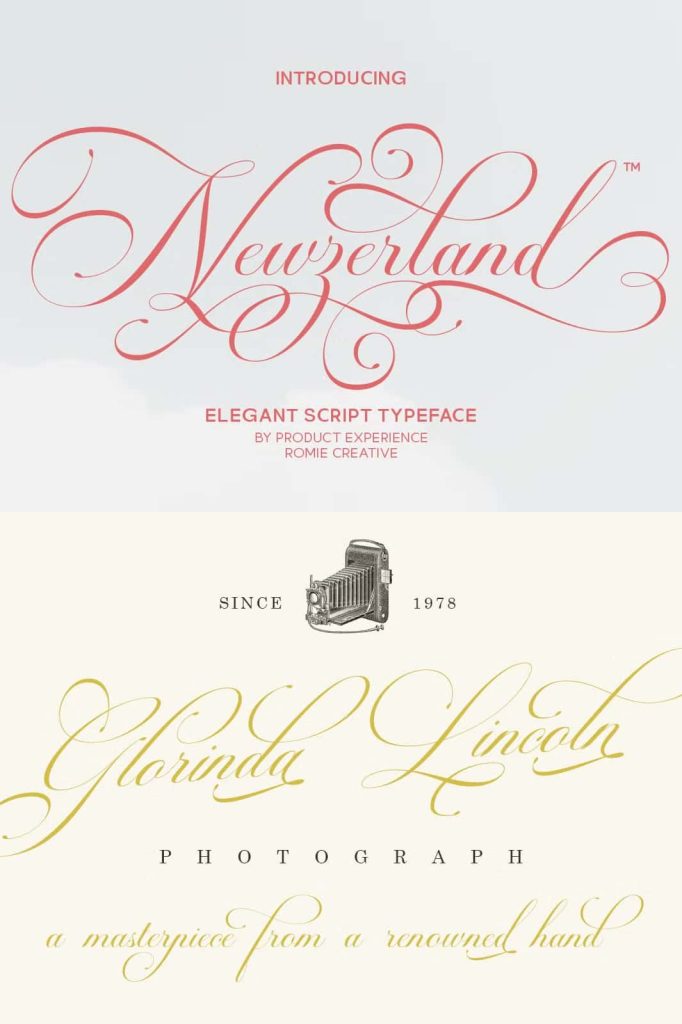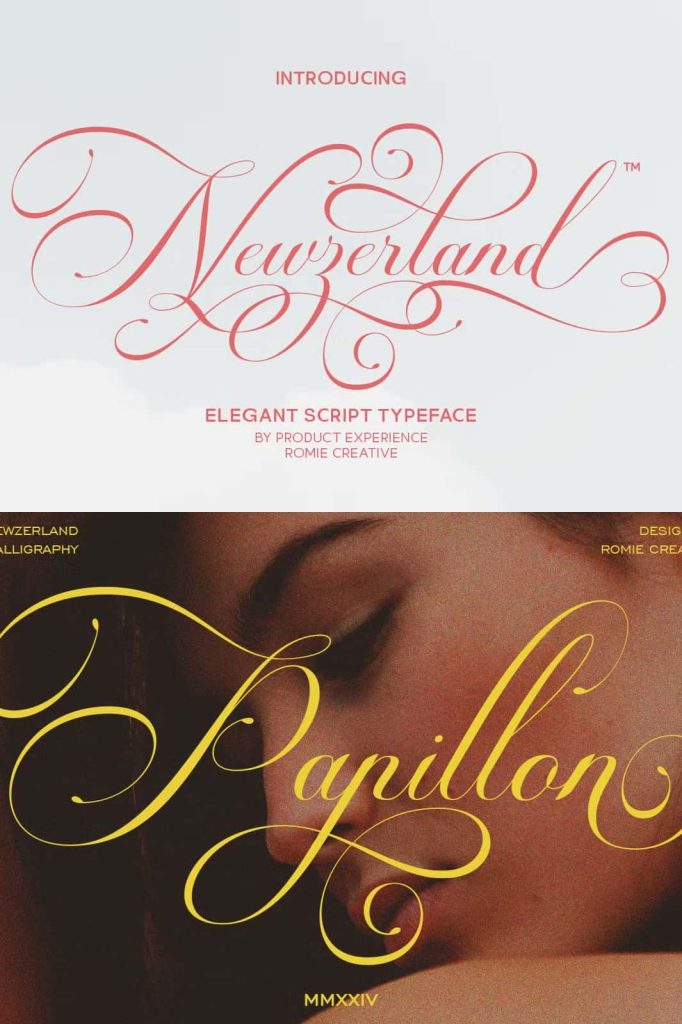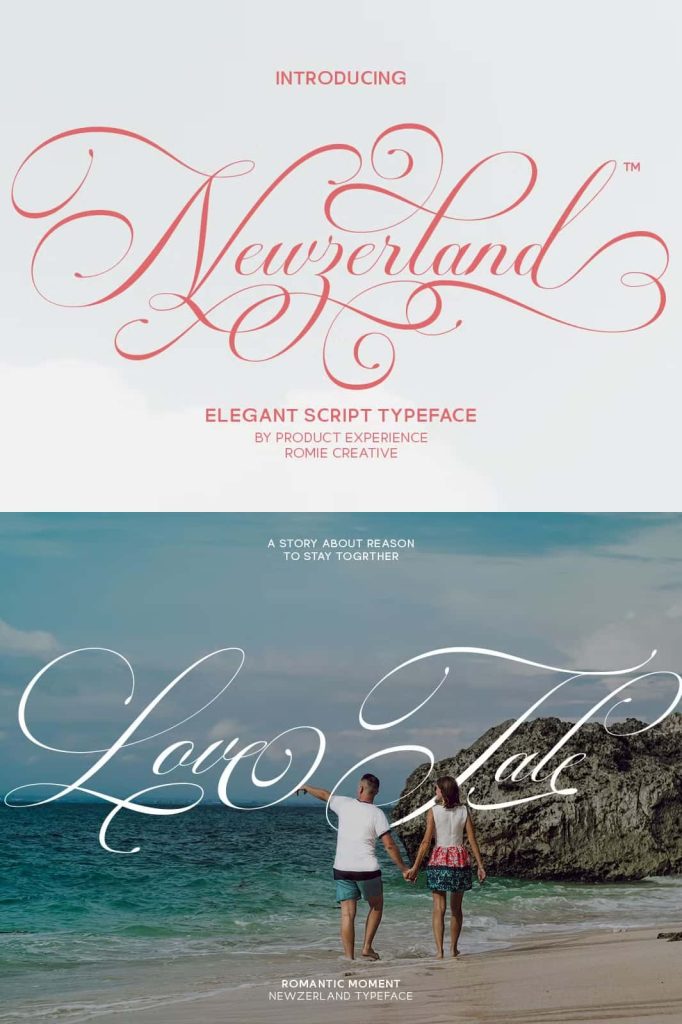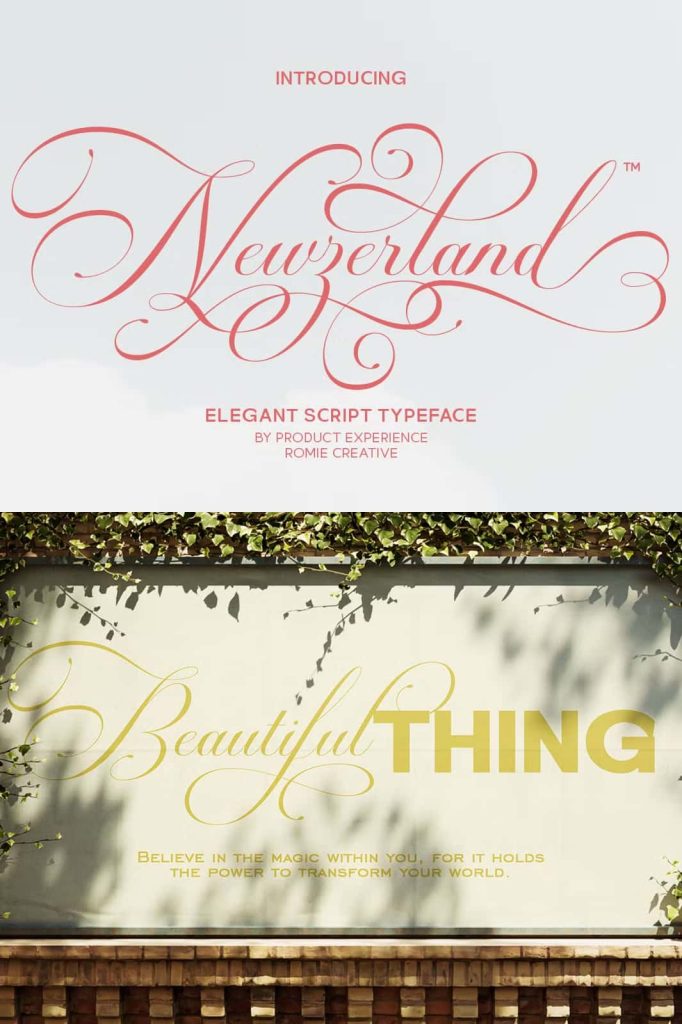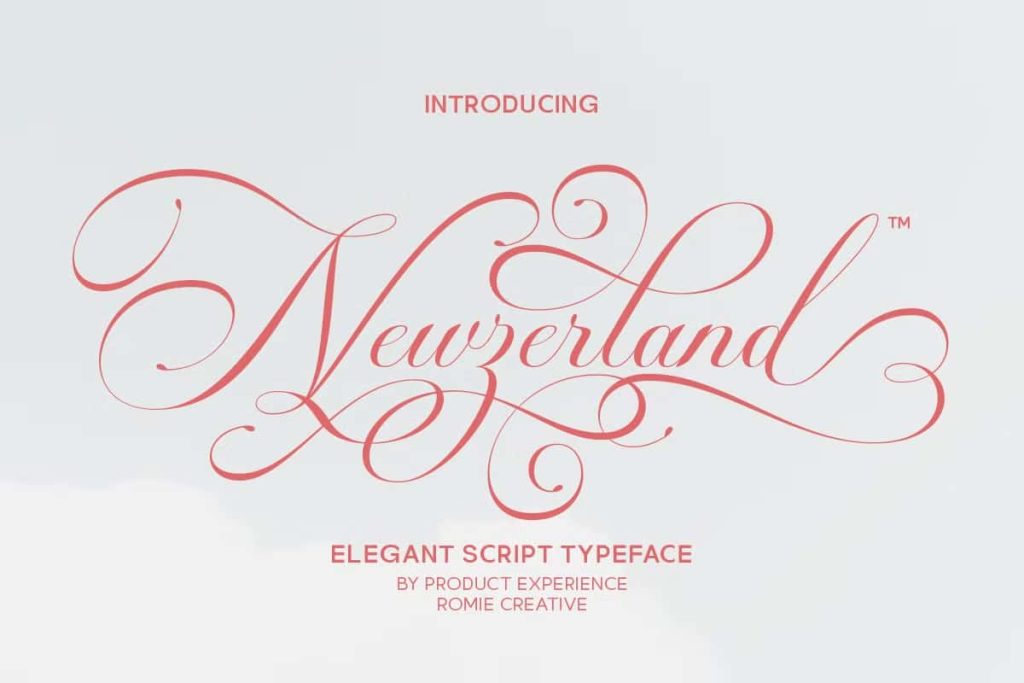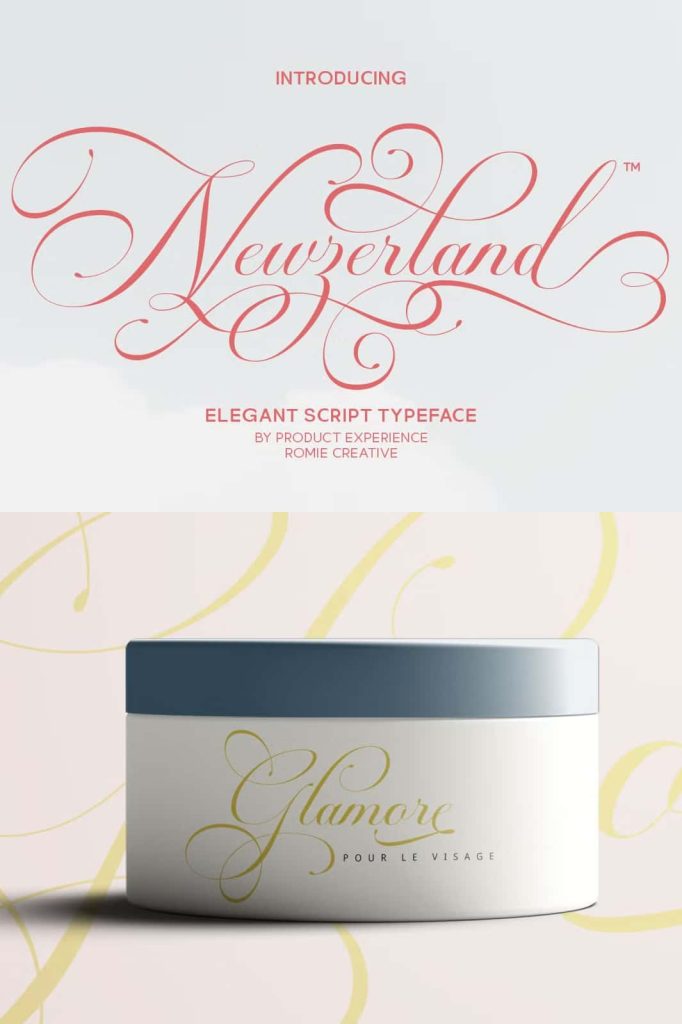
Newzerland Script is a calligraphy script font that comes with very beautiful changing characters, a kind of classic decorative copper script with a modern touch